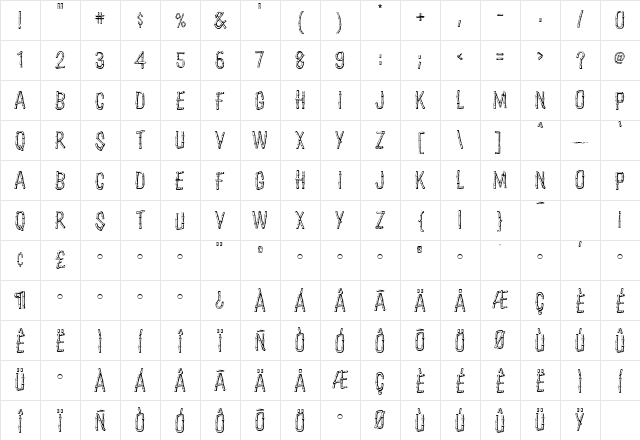
TikiPalms Regular
Design Context for TikiPalms
TikiPalms is a composed and adaptable typeface that performs quietly and consistently across a wide range of design contexts.